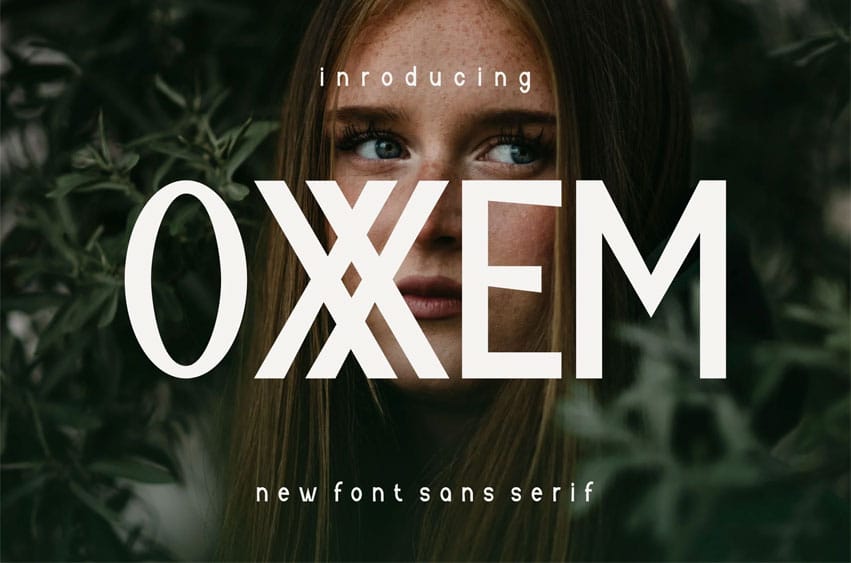
Oxxem Font Sans Logo Display & Font Logo and authentic display. It is suitable for flyers, posters, novels, letterheads, or any design requirements you want to be awesome.